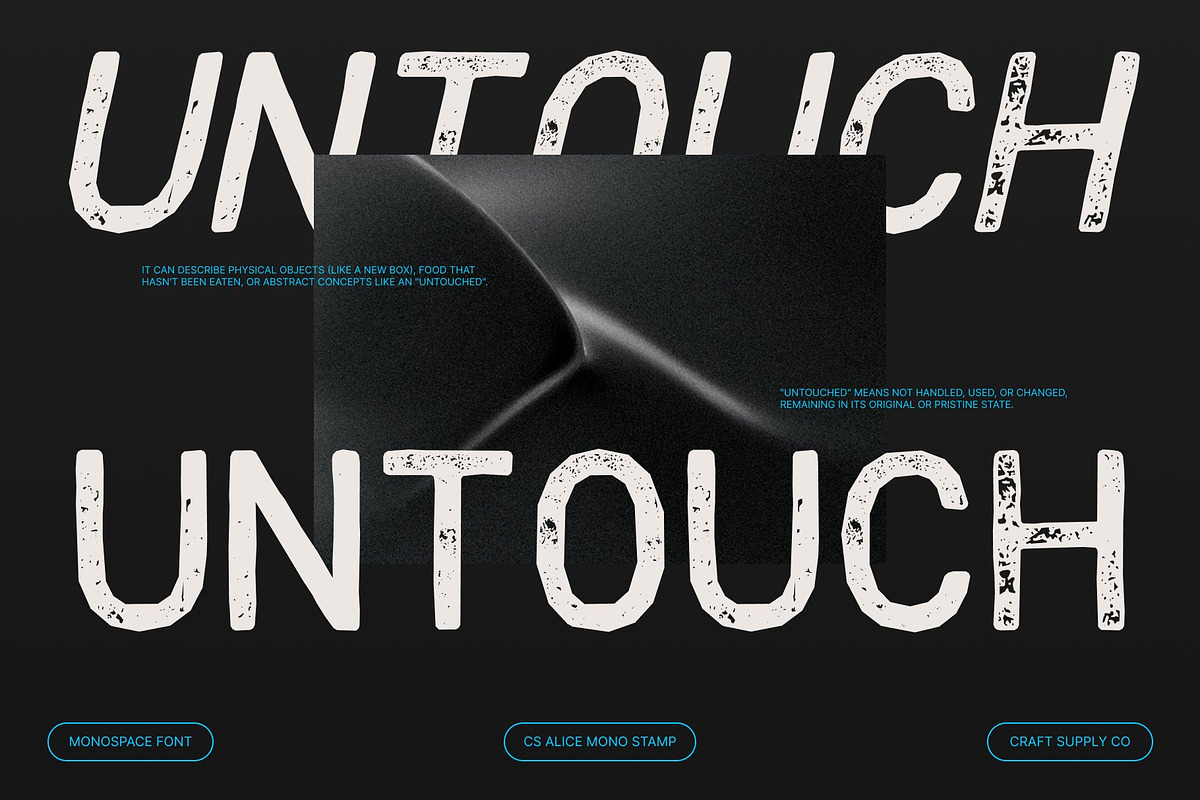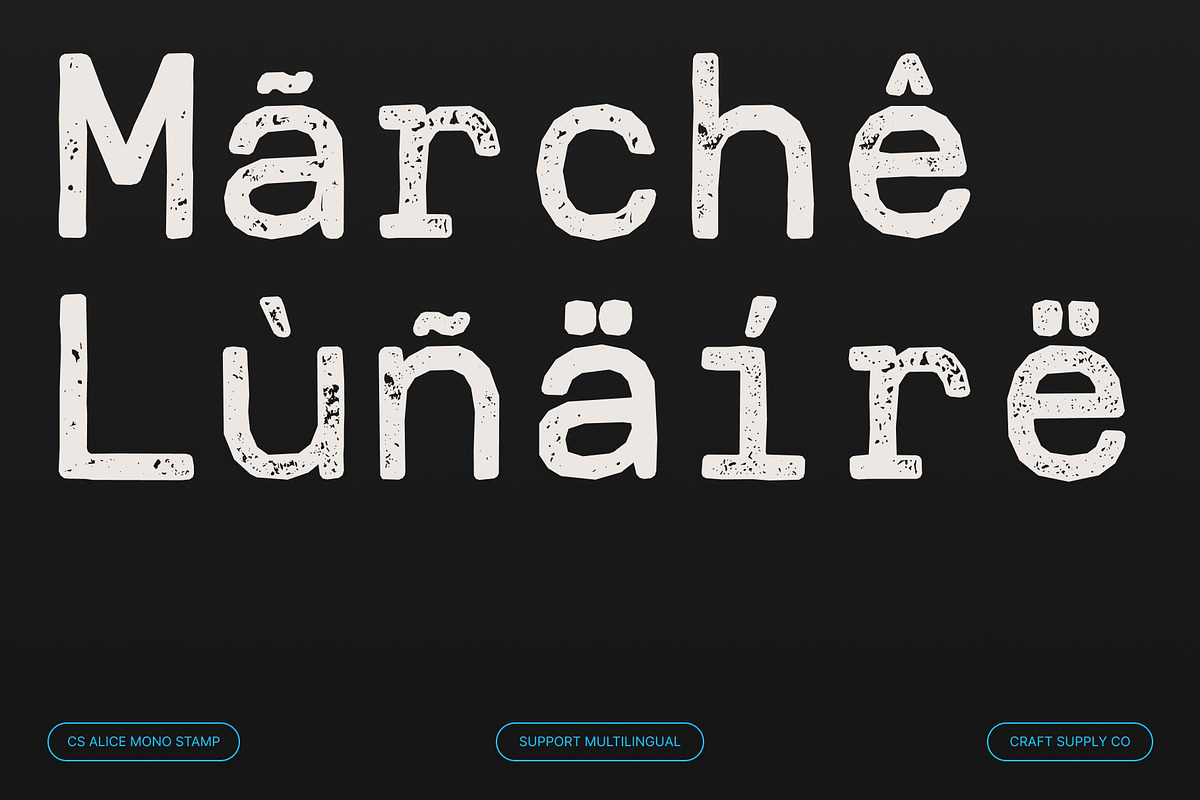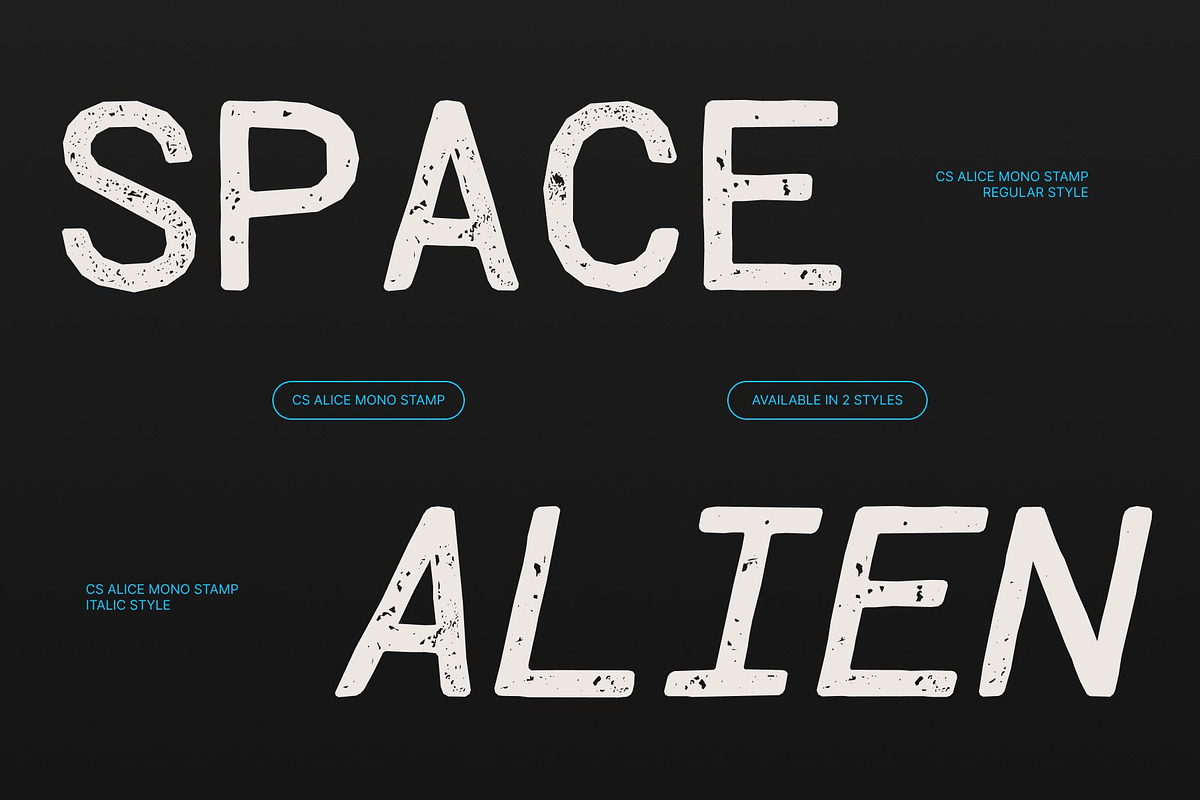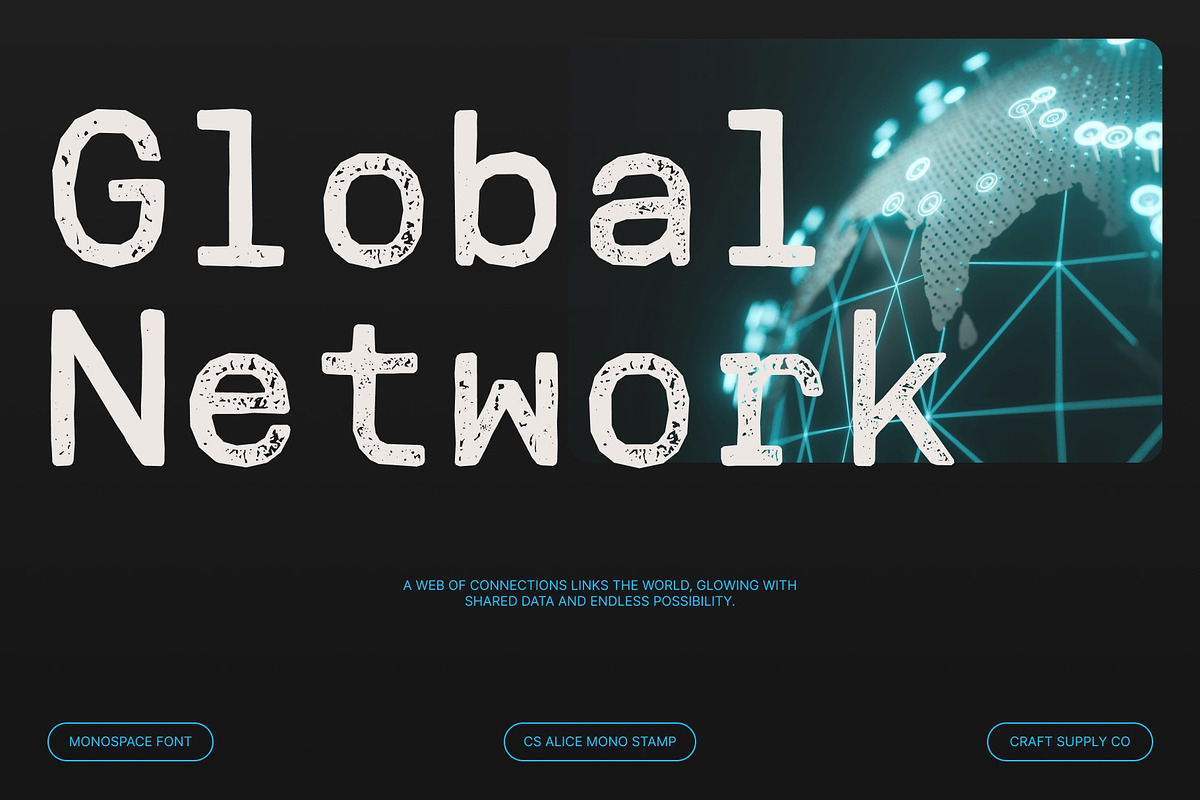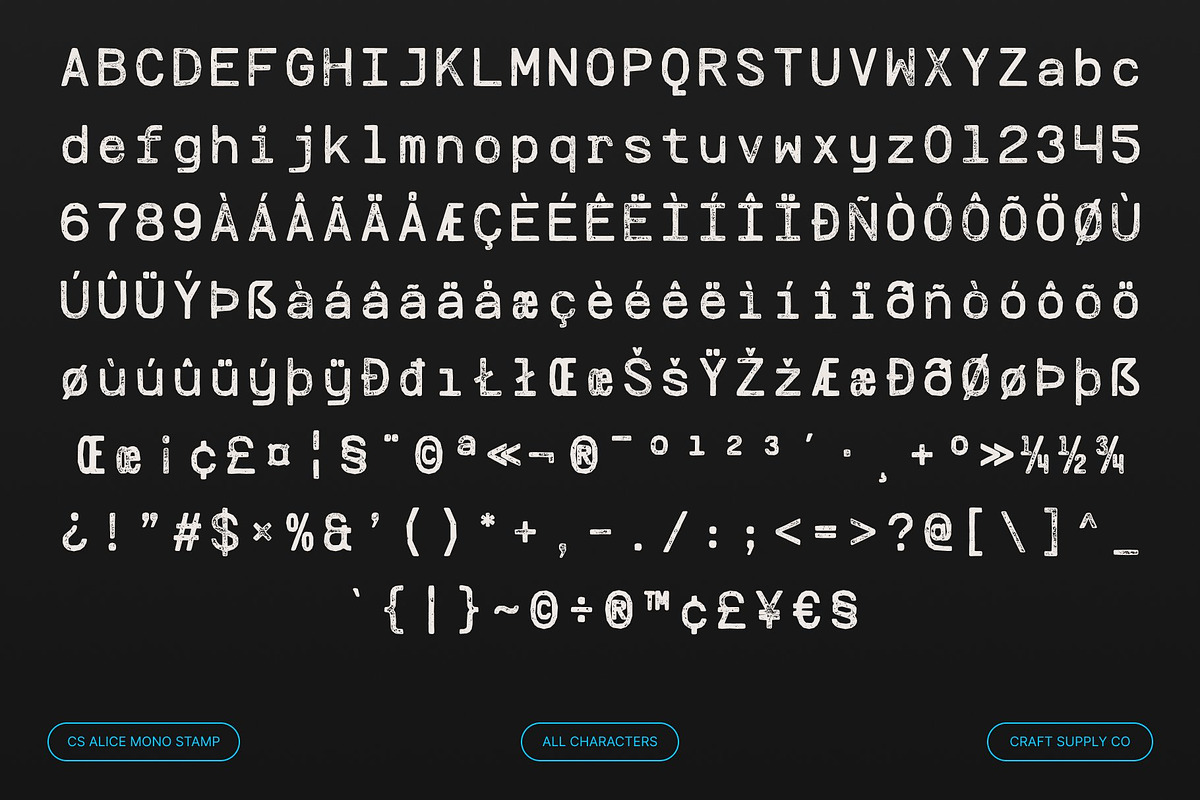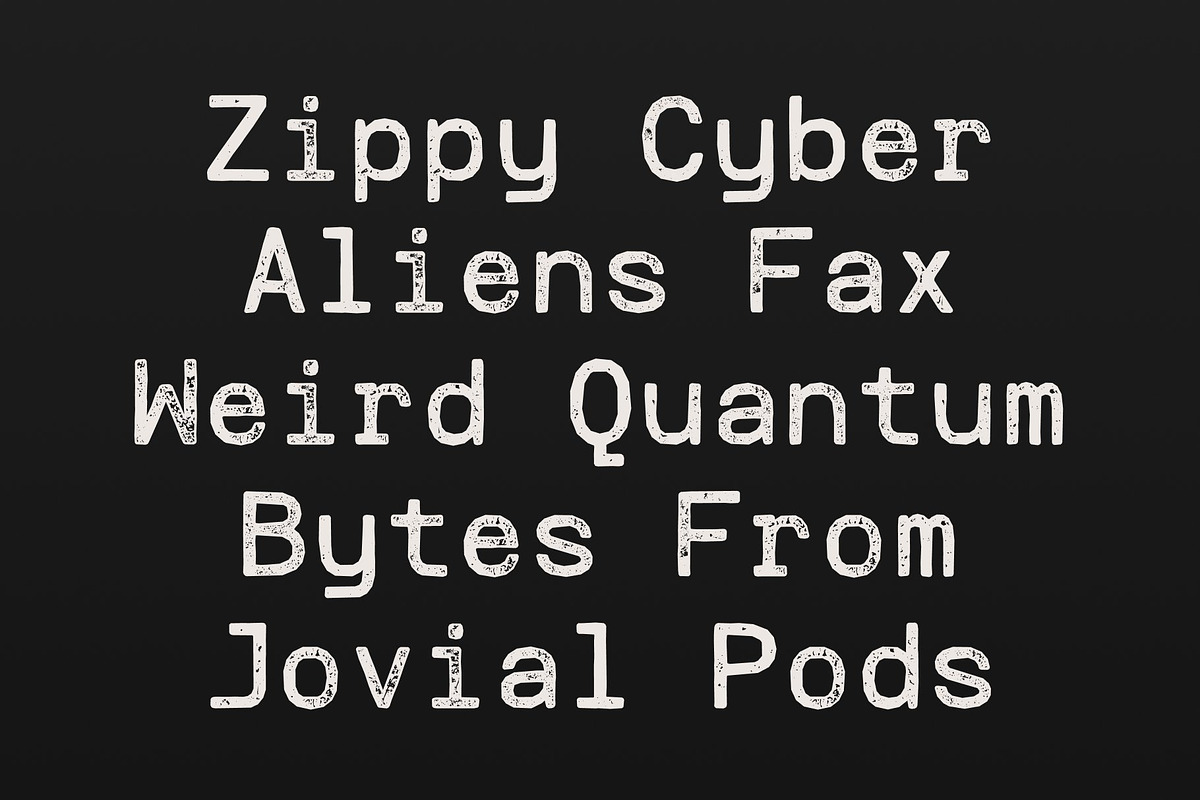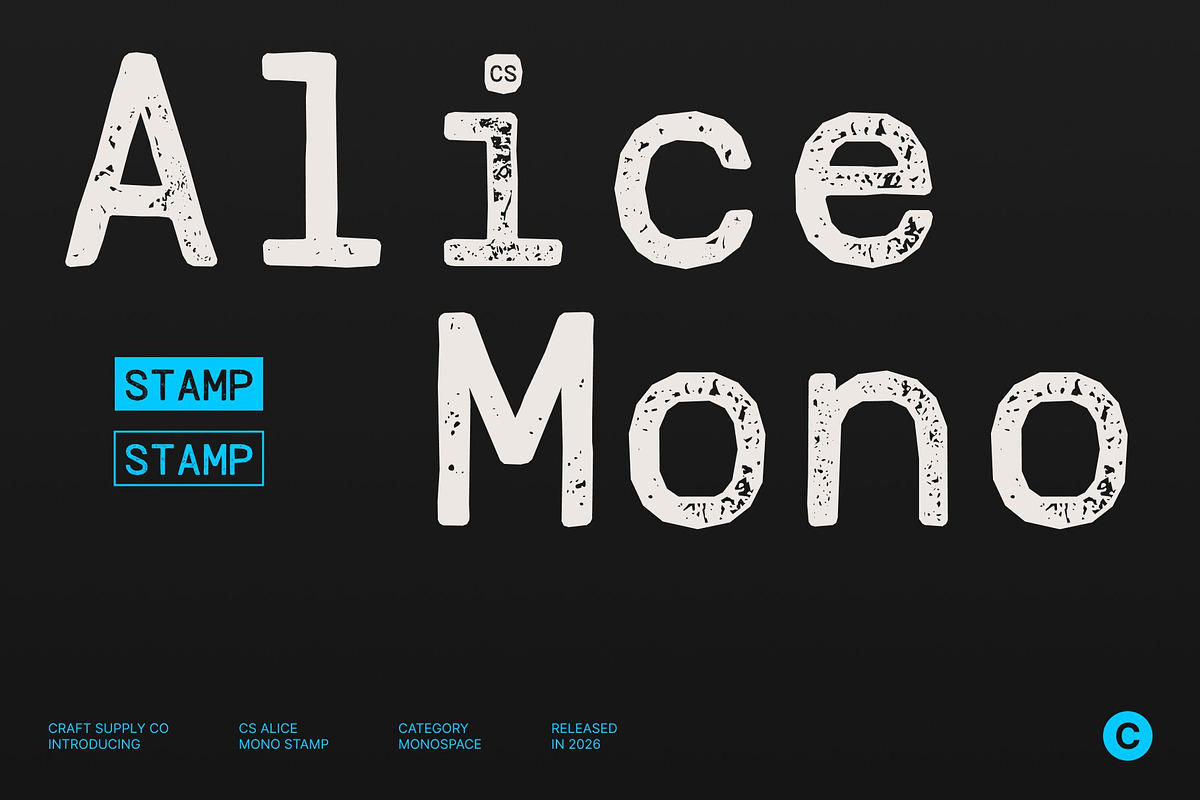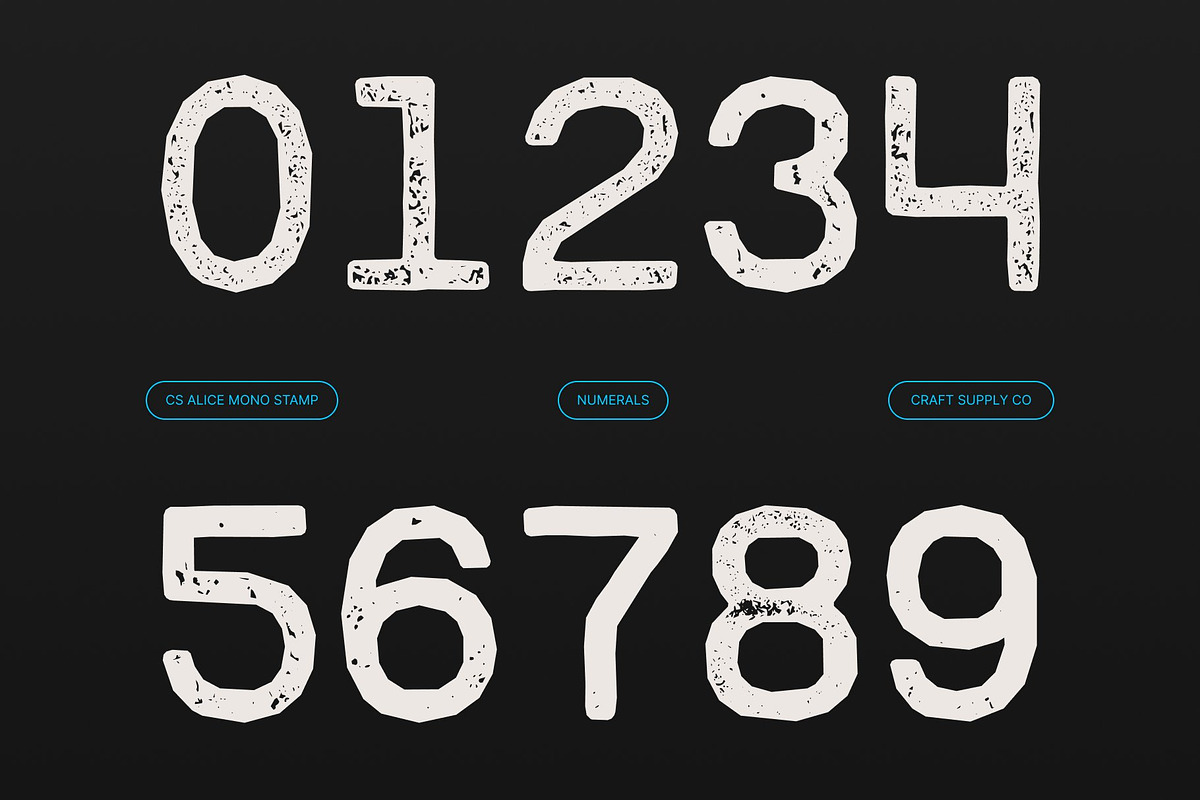
CS Alice Mono Stamp
CS Alice Mono Stamp – Monospaced Font with Vintage Precision Modern Monospaced Sans Serif with Textured Stamp Character This is a modern monospaced sans serif font built on consistent spacing and enhanced with a vintage stamp effect. Its clean, geometric foundation is enriched by subtle distressed textures and inked imperfections, creating a unique balance between technical clarity and old-school charm. The result is a font that feels precise yet tactile, structured yet expressive.
Uniform Spacing with Aged Visual Depth The monospaced structure ensures every character maintains equal width, preserving excellent alignment and readability. The added stamp texture introduces worn edges and uneven ink impressions, giving the font a handcrafted, timeworn appearance without compromising clarity. This combination makes each character stand out clearly while adding visual warmth and personality.
Technical Functionality with Artistic Vintage Appeal This font excels in coding layouts, technical documentation, UI designs, and digital interfaces that require precision but with character. Its stamped finish softens the strict mechanical feel often associated with monospaced fonts, making technical content feel more human, creative, and visually engaging.
Perfect for Retro-Tech, Editorial, and Creative Coding Visuals Ideal for retro-tech branding, experimental editorials, tech posters, creative coding visuals, and documentation with personality, this font delivers both function and style. It bridges the gap between modern digital precision and vintage, artistic typography bringing an old-design soul to contemporary technical layouts.
- CS Alice Mono Stamp Regular
- CS Alice Mono Stamp Italic